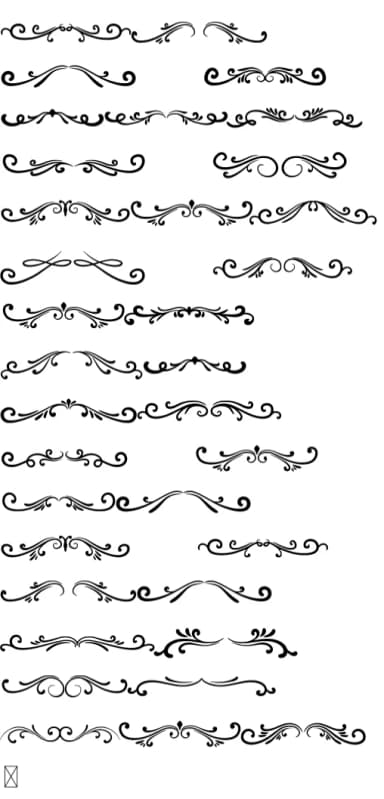
Dividers evokes an ornamental elegance that feels both timeless and whimsical. This dingbats font by Eystore delivers a thoughtful collection of decorative flourishes and border elements designed to function as compositional glue, giving layouts breathing room while maintaining visual interest and that handcrafted quality.
The real power emerges across specific projects: wedding invitation suites where ornate borders frame ceremony details and set a formal tone, Etsy product labels for handmade goods that need to signal quality and intentional craft, DIY craft signage for makers and craft markets, and vintage-inspired event materials demanding visual character. Scrapbooking layouts benefit tremendously from its rhythmic borders, decorative stationery gains instant sophistication from even a single flourish, and print packaging for boutique skincare or artisanal goods creates visual resting points that keep eyes engaged. Each character works as a standalone accent or woven throughout larger compositions.
Dividers Font is a versatile dingbats font that works for both headings and body text. Pair it with a contrasting sans-serif or serif font to add visual interest and a clear distinction between titles and body copy.
Dividers Font
by Eystore